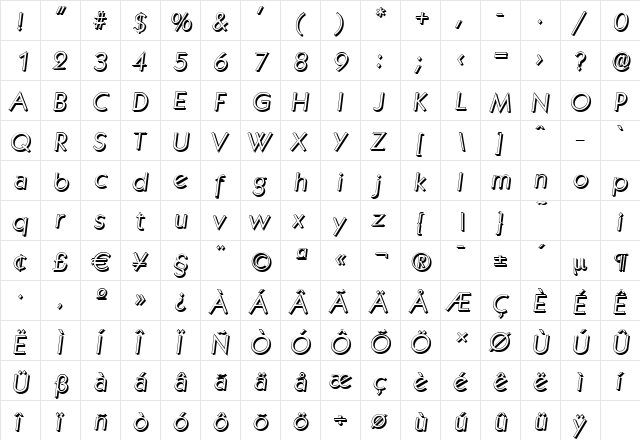
KoblenzShadow-Light Italic Font Preview
Design Context for KoblenzShadow-Light Typeface
KoblenzShadow-Light brings ornamental detail and strong personality to headlines and identities, where visual impact matters more than quiet functionality. The dynamic lean of this cut emphasises speed and emphasis in any layout. The delicate stroke weight brings airiness and refinement to layouts.
Font Pairing: Pair with a clean neutral sans-serif for body copy to let KoblenzShadow-Light's character lead without overwhelming the composition.
Pro Tip: Use KoblenzShadow-Light exclusively at display sizes — it was designed to be seen, not read at length. Let a neutral companion handle body copy.